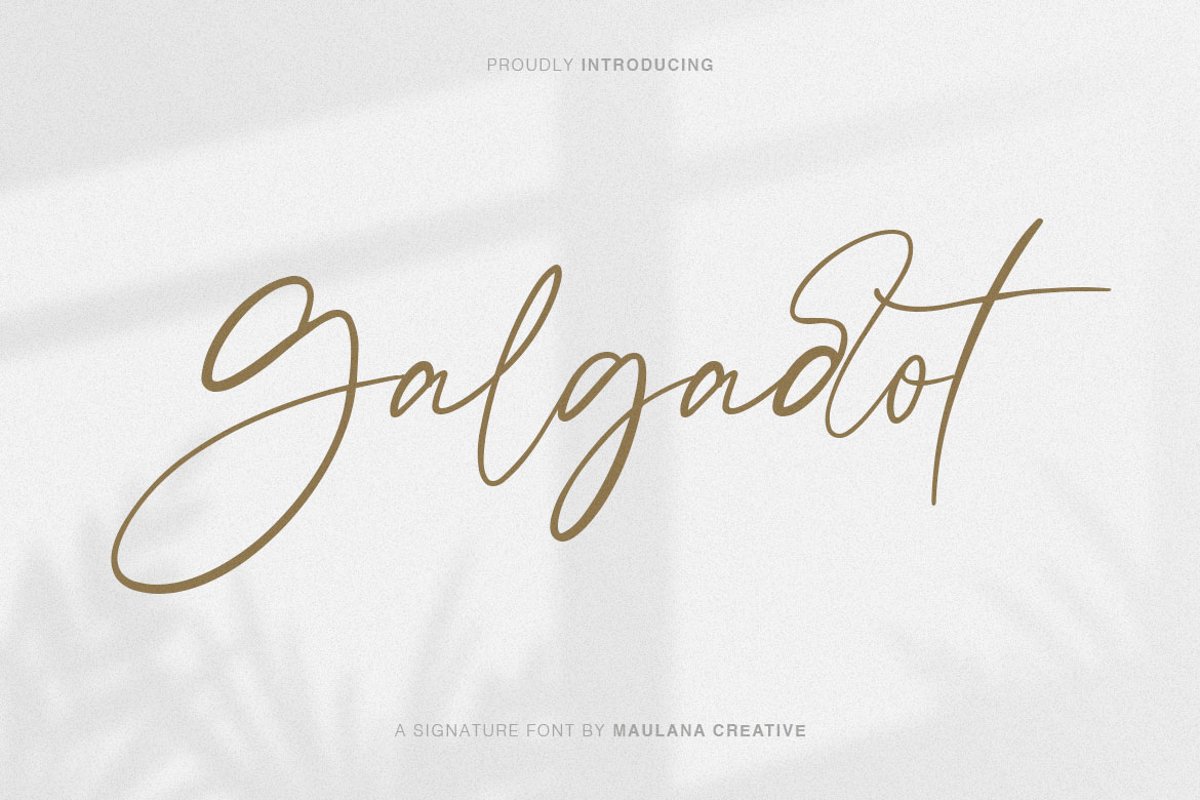
Give your designs an authentic handcrafted feel. "Galgadot" is perfectly suited to signature, stationery, logo, typography quotes, magazine or book cover, website header, clothing, branding, packaging design and more.
Galgadot